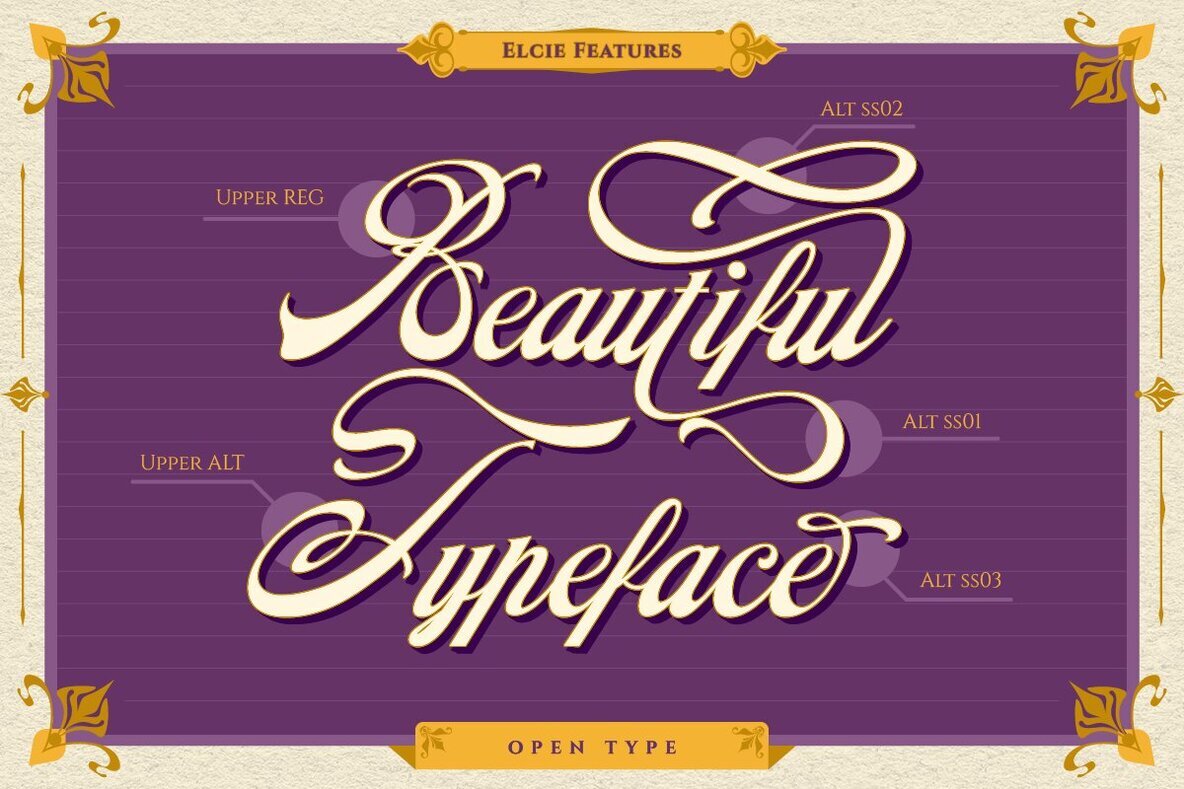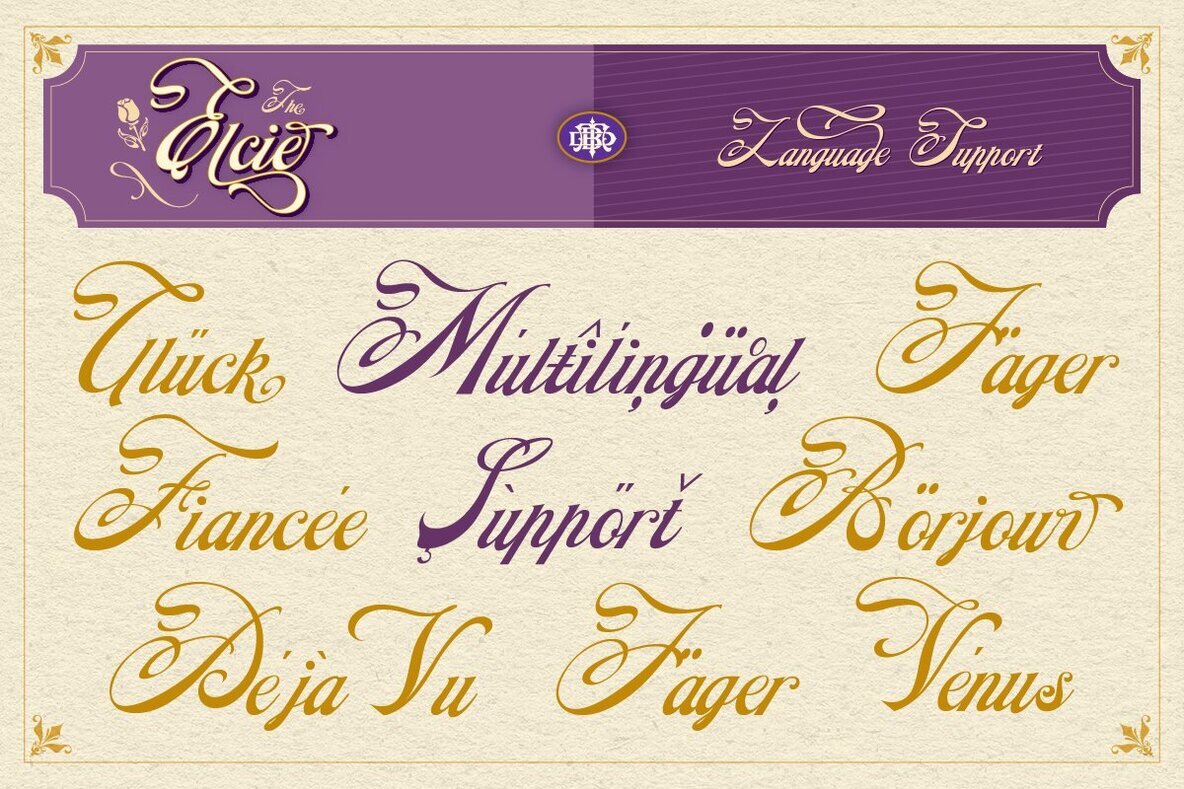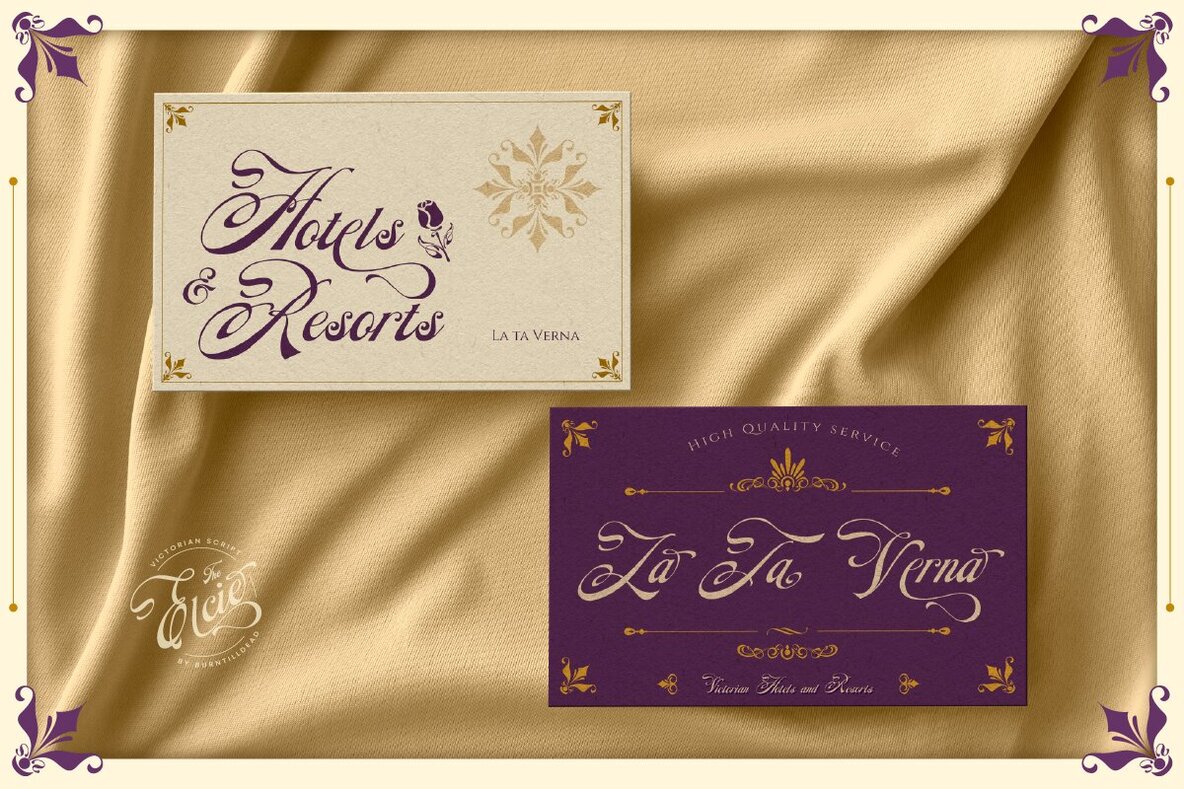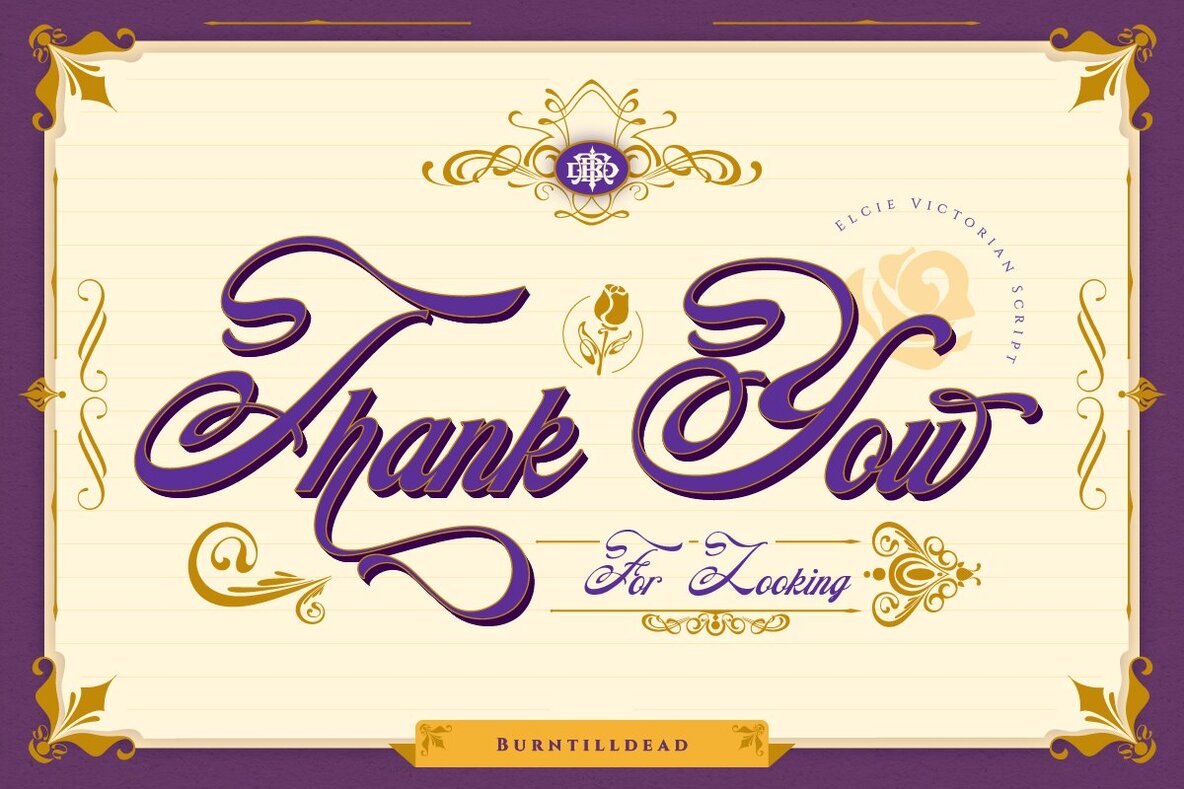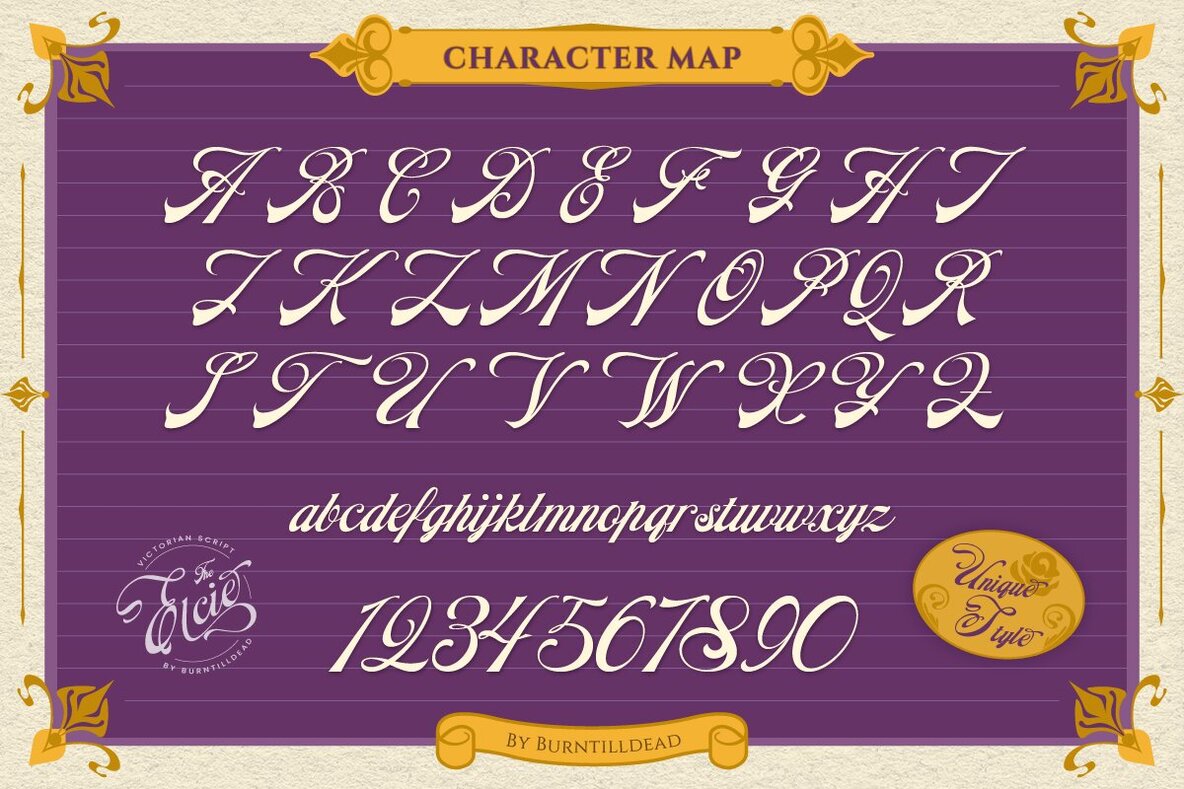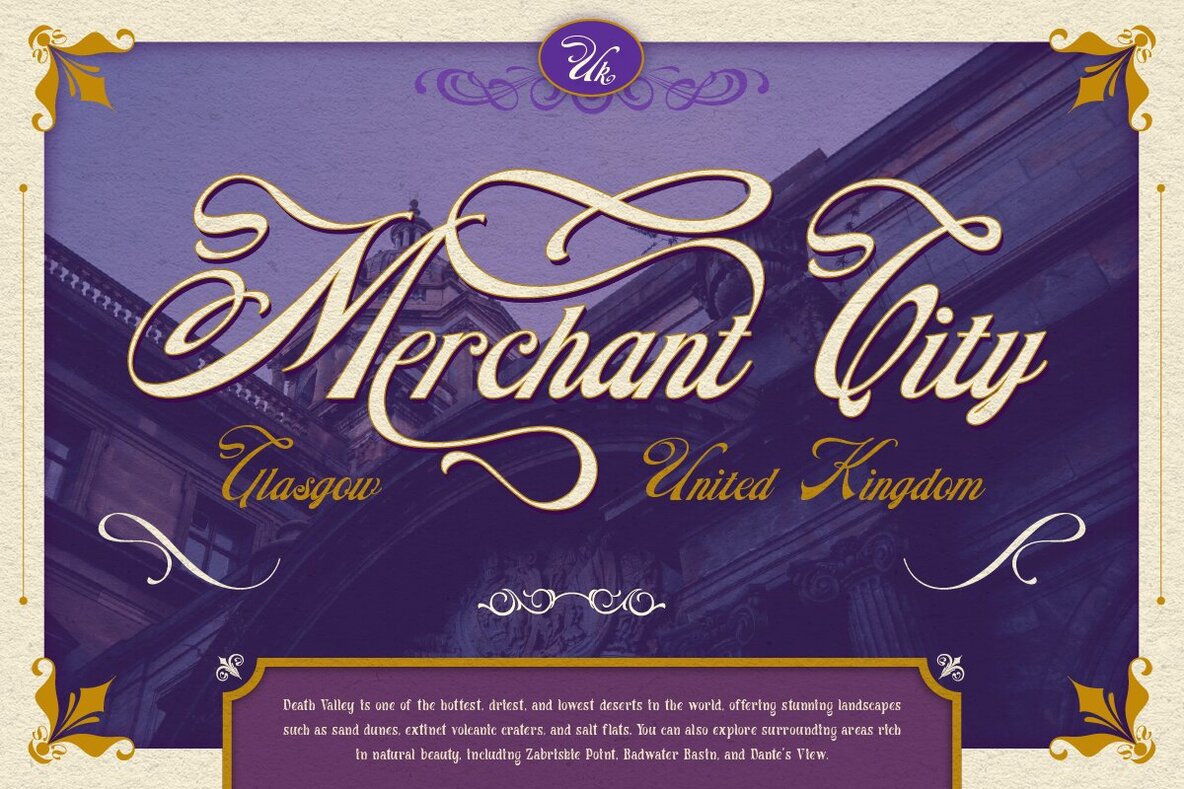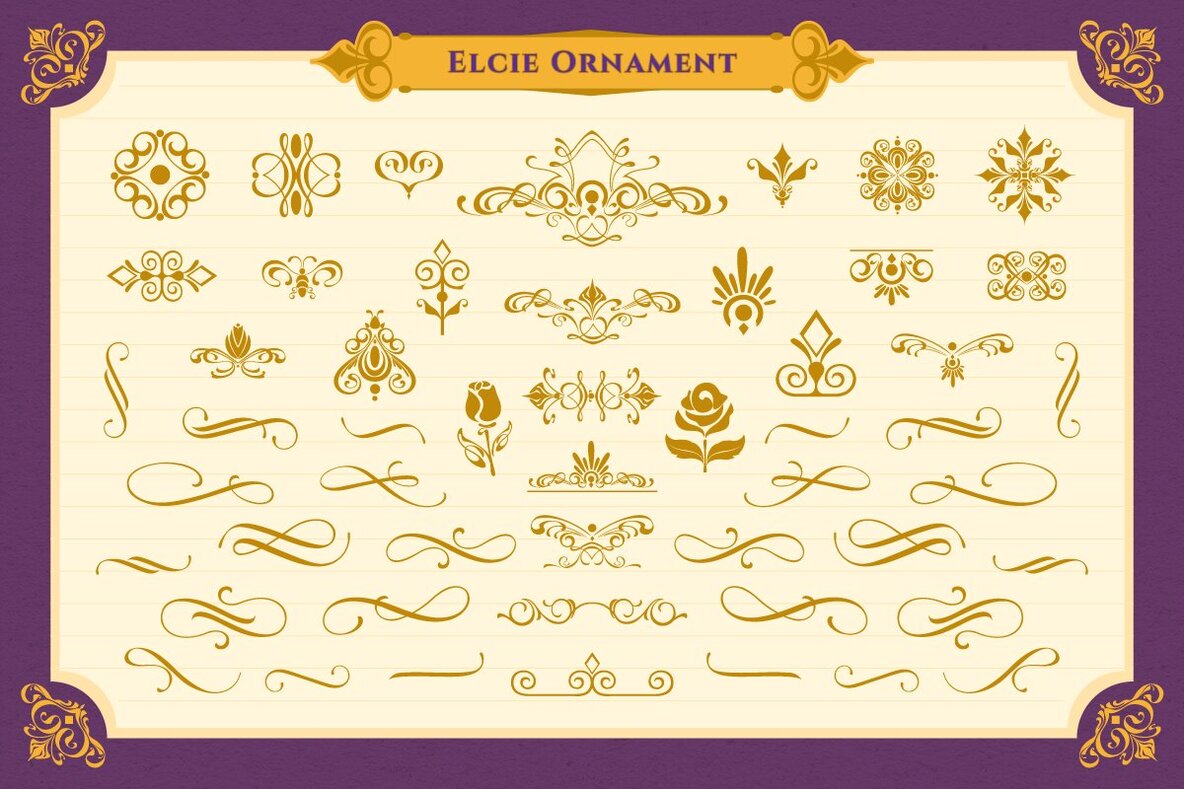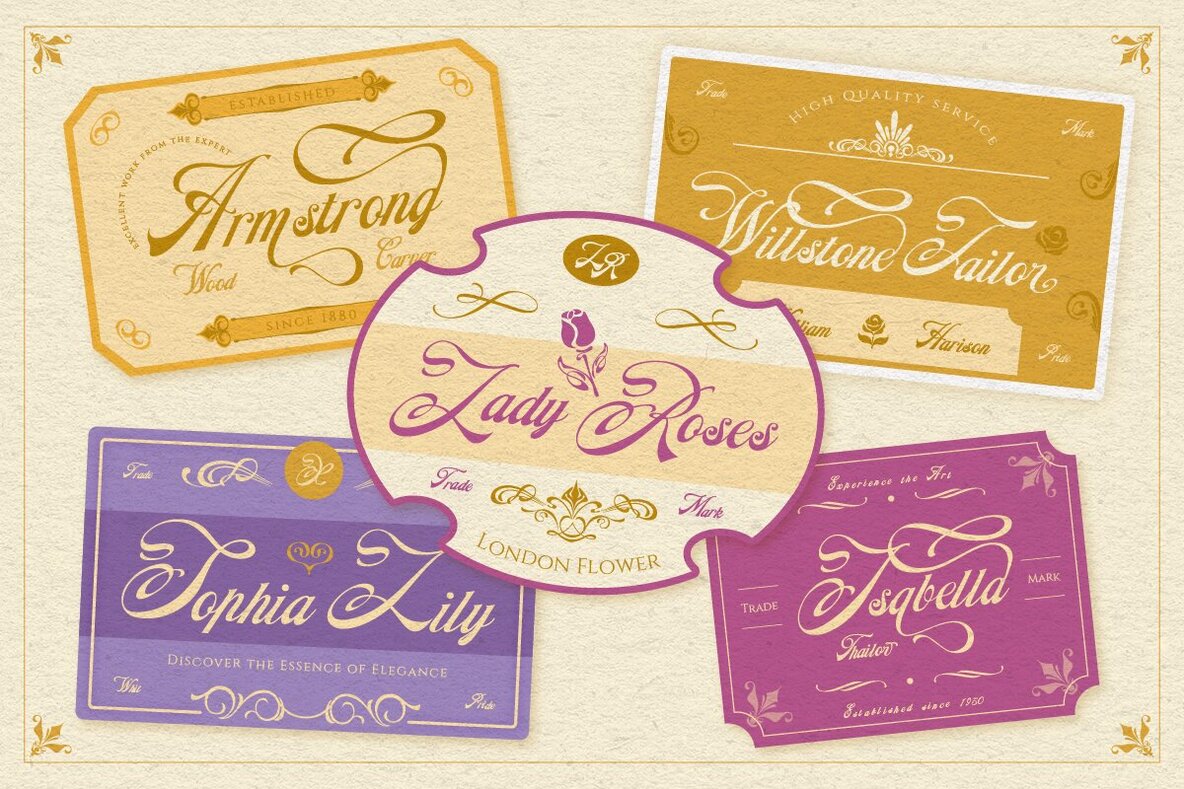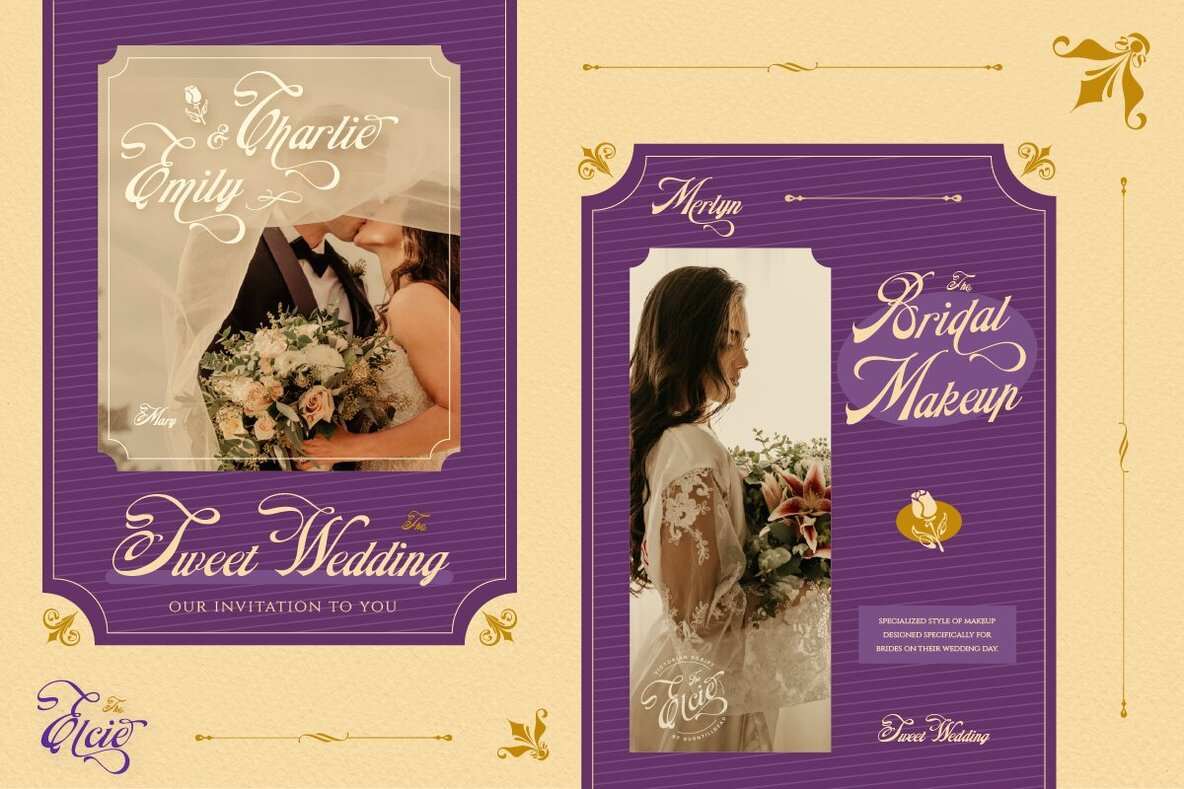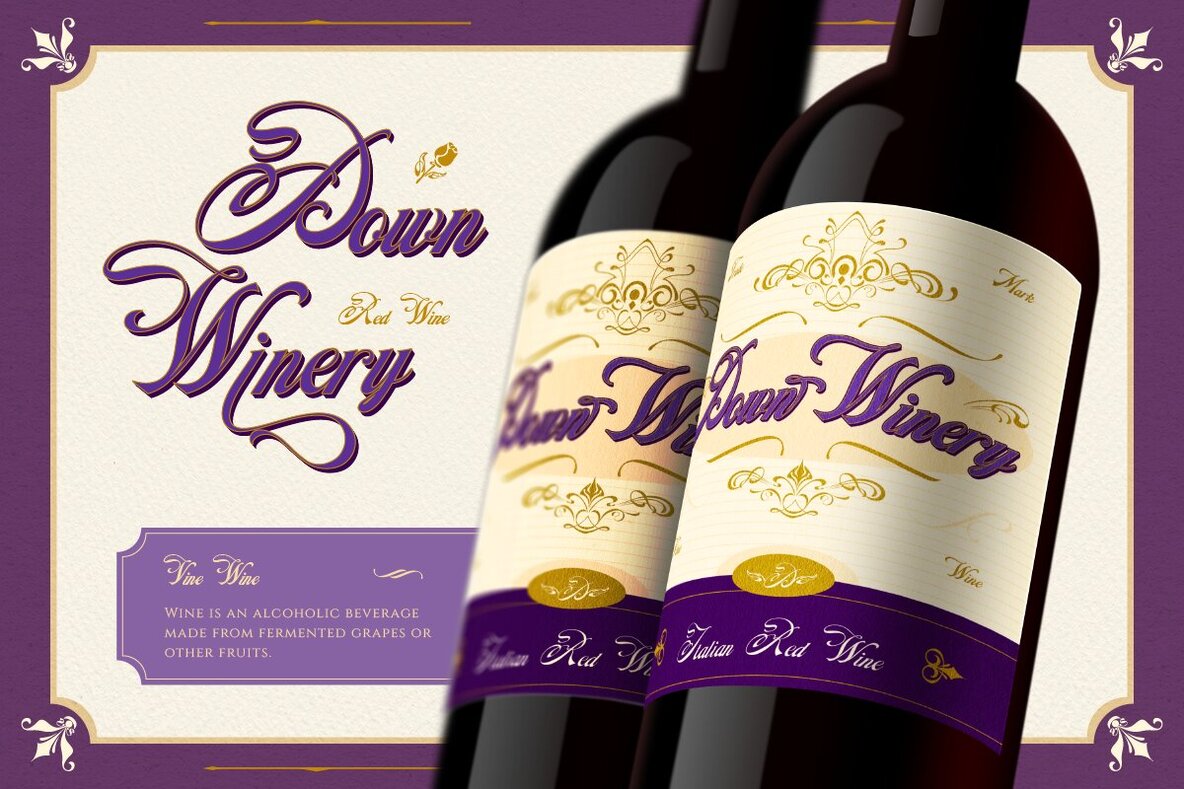
Elcie Font
Transform your design into a Victorian masterpiece with Elcie. This typeface captures the essence of a classical and elegant Victorian style, perfect for projects needing a touch of historical charm. Whether you're working on a logotype, label design, book cover, business card, or invitation card, Elcie provides the ideal solution.Elcie: Victorian-Inspired Typeface with Elegant Ornaments